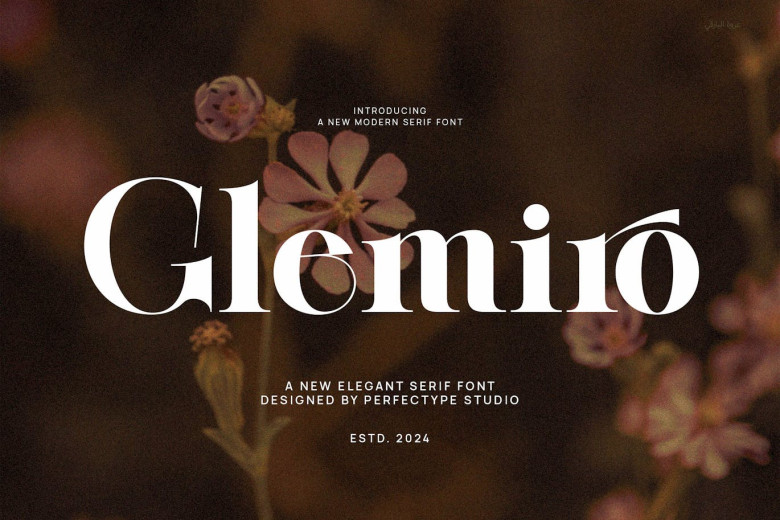
Glemiro Font
Glemiro is so elegant and classy suitable for all branding and logos. This type of Serif font is elegant and luxurious and therefore can be applied to any of your designs. It is ideal for these purposes such as branding projects, logos, social media posts, ads, labels, product packaging, photography, wedding, watermarks, invitation product designs, and stationery as well as any other project established under high readability standards.
Glemiro Serif Font